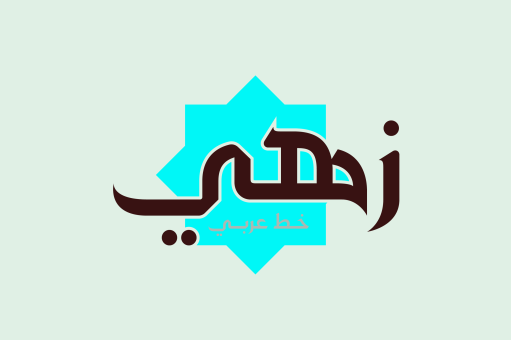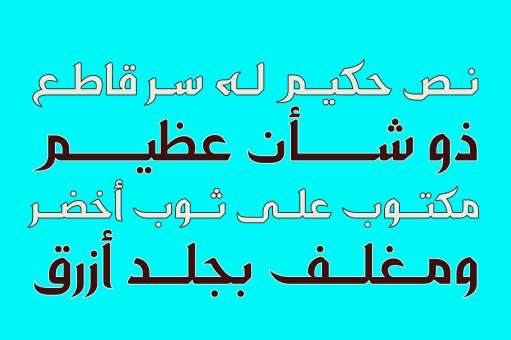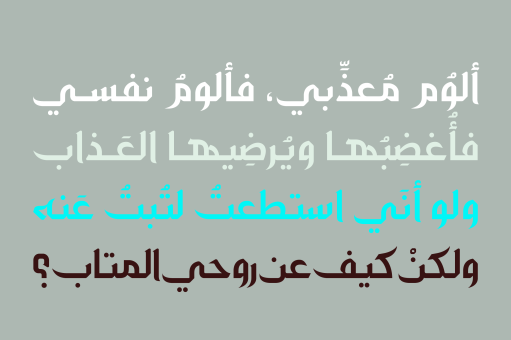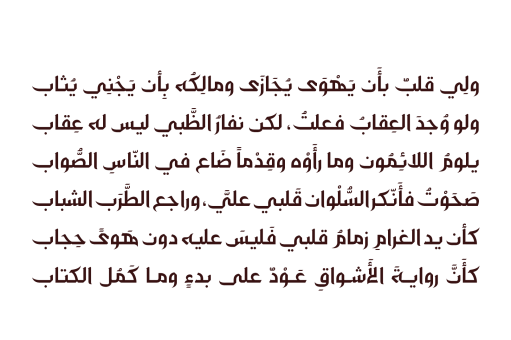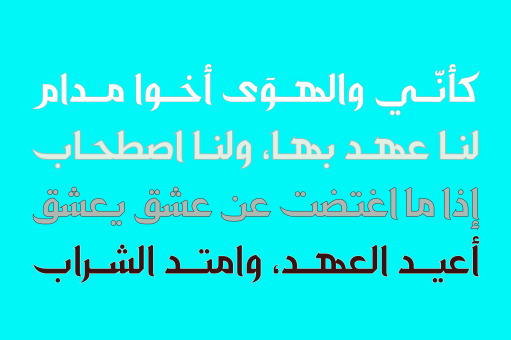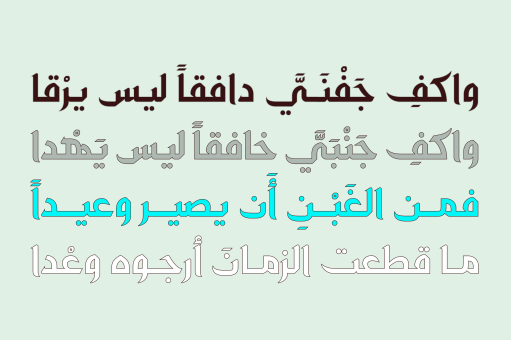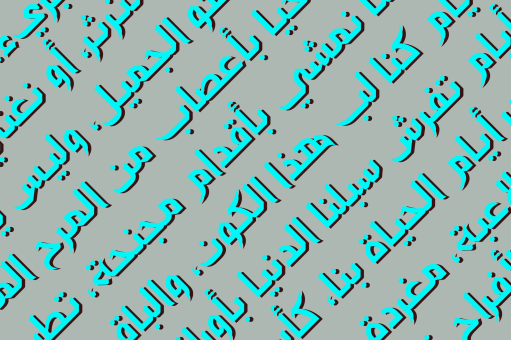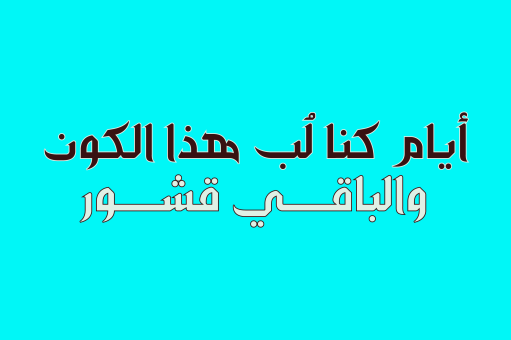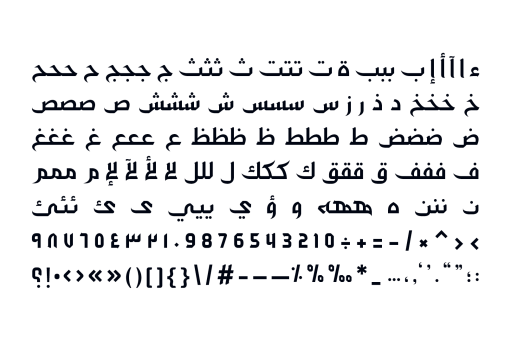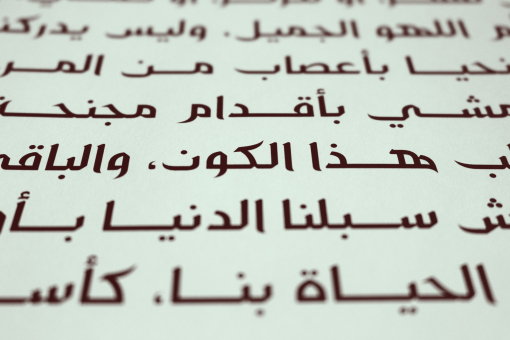
Zahey
The word Zahey is the Arabic for vivid. Zahey is an Arabic display font that uniquely combines the geometric structure with the traditional penmanship. The font suits publication design, branding and web.